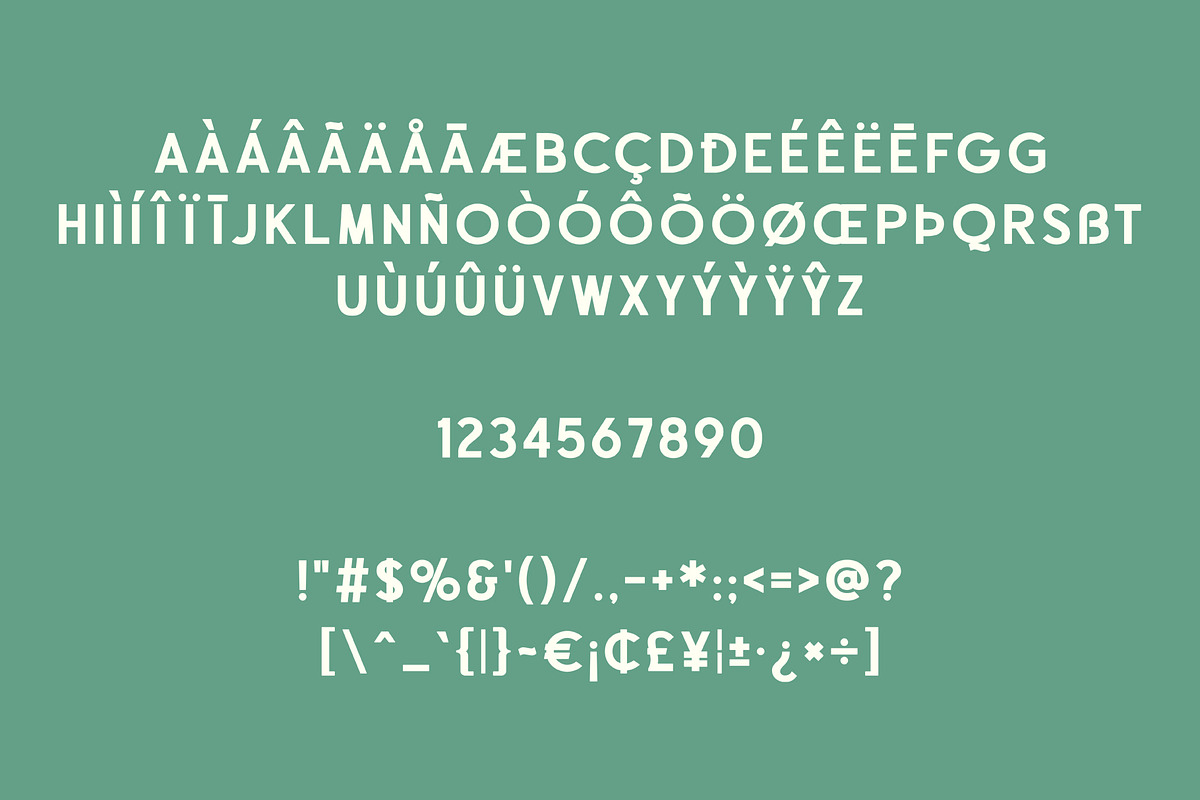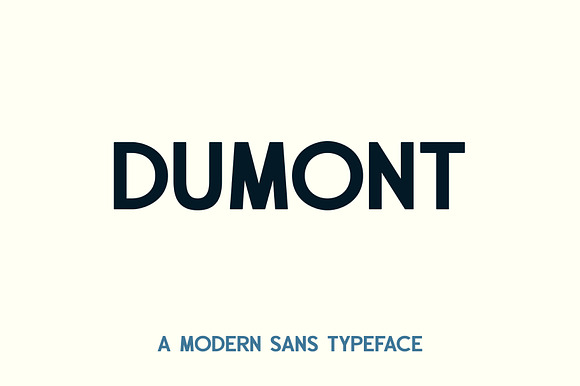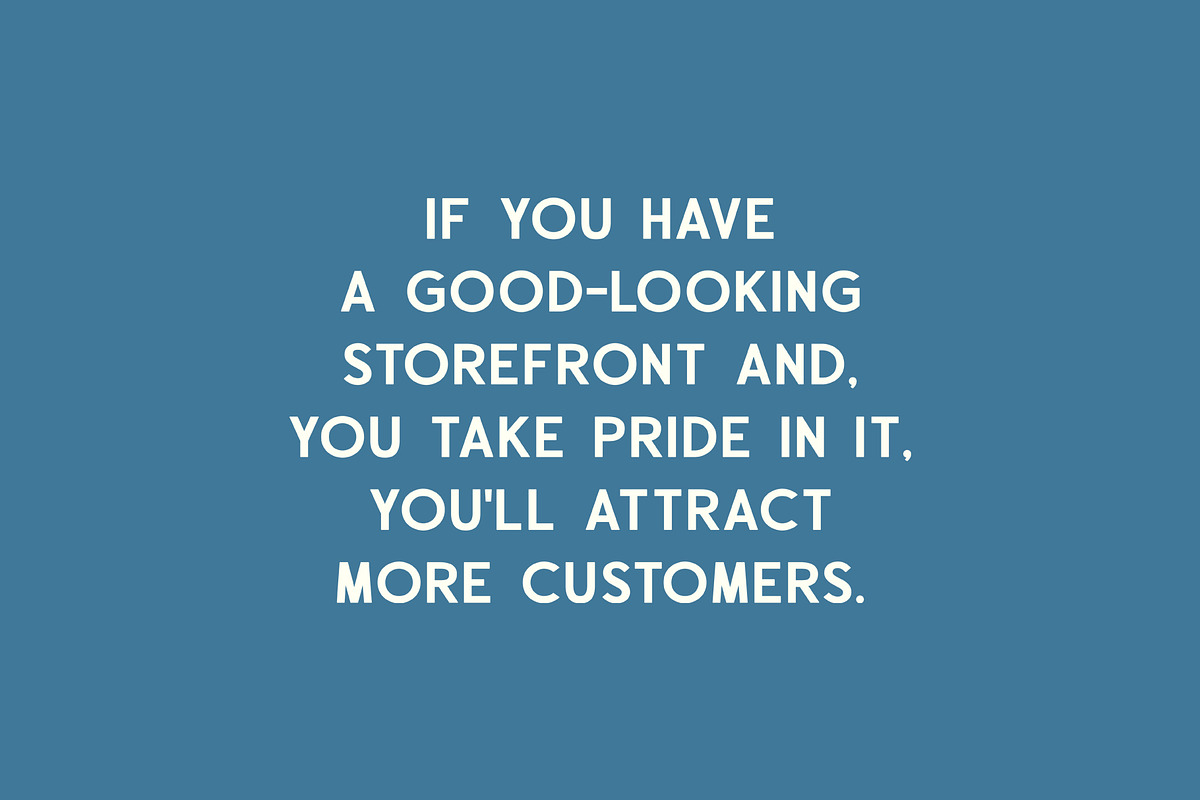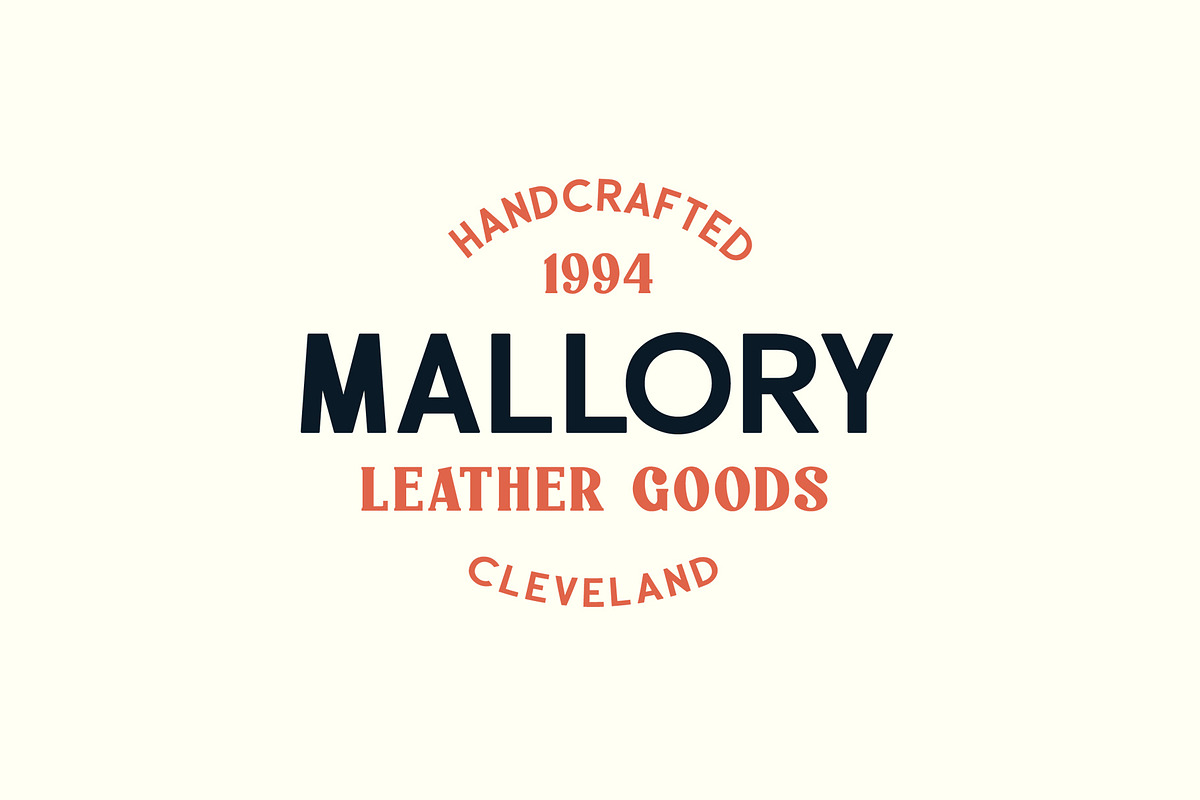
Dumont Typeface
Dumont Sans is a clean, modern sans display typeface. Dumont is a part of "Paschal Dumont" font duo (available here: ). Dumont is a clean, geometric sans-serif typeface designed for clarity, versatility, and modern elegance. With its balanced proportions and smooth strokes, Dumont excels in branding, user interfaces, web design, print collateral, and editorial layouts. It supports an extended Latin character set, making it a solid choice for multilingual projects. Use it for logos, corporate identity, websites, apps, presentation decks, or signage. Pair Dumont with serif fonts for a refined contrast, or layer it over soft paper textures, subtle grain overlays, or halftone patterns to add tactile richness. Dumont delivers a minimal yet confident typographic voice.
Language support: ÀÁÂÄÃÅĀ Æ Ç ÈÉÊËĒ ÎÏÍĪÌ Ñ ÔÖÒÓØÕ ÛÜÙU ŸÝỲŶ ÞŒ àáâäãåā æ ç èéêëē îïíīì ñ ôöòóøõ ûüùu Ÿýỳŷ þœ
- It supports an extended Latin character set, making it a solid choice for multilingual projects.
Why Dumont Typeface is worth a look